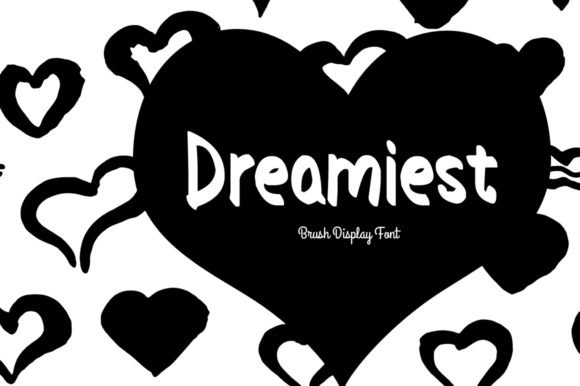
When Typography Meets Whimsy
Have you ever found yourself staring at a blank page, waiting for the perfect idea to strike? For many creatives, that moment of inspiration comes when least expected – perhaps while daydreaming on a morning commute or scribbling notes in a coffee shop. For me, it was during a particularly vivid dream that I awoke with a spark of creativity and a vision for the perfect display font: the Dreamiest Font.
Meet the Dreamiest Font, a charming and elegant typeface designed to capture the essence of whimsical creativity. With its delicate curves and playful details, this font is perfect for adding a touch of magic to your next design project. Whether you’re a seasoned designer or just starting out, the Dreamiest Font is a valuable addition to your toolkit – offering endless possibilities for artistic expression and inspiration.
Dreamiest Font Key Features
- Unique Characteristics: The Dreamiest Font features a unique blend of whimsical and elegant elements, with intricate details and subtle texture.
- Kerning and Ligatures: The font includes advanced kerning and ligature pairs, ensuring seamless letter spacing and a professional look in typesetting.
Dreamiest Font Review
Overall, I think the Dreamiest Font is a great addition to any design project. It’s ✨ elegant ✨, ✨ sophisticated ✨, and ✨ highly customizable ✨.
- ✨ Beautifully designed characters ✨: The font has a unique, hand-crafted feel to it, making it perfect for projects that need a touch of whimsy.
- ✨ Great for headings ✨: The font’s large x-height and elegant letterforms make it ideal for use in headings and titles.
- ✨ Highly customizable ✨: The font comes with a wide range of OpenType features and stylistic sets, allowing designers to easily add flair and personality to their work.
- ⚠️ Limited legibility in small sizes ⚠️: While the font looks stunning at larger sizes, it can become difficult to read at smaller sizes.
- ⚠️ Not ideal for body text ⚠️: The font’s flowing lines and elegant letterforms make it better suited for use in headings and titles, rather than body text.
Overall, I think the Dreamiest Font is a great choice for designers who want to add a touch of elegance and sophistication to their work. While it may have some limitations, it’s a versatile font that can be used in a variety of projects, from luxury brands to editorial design.
Tips for Getting the Most Out of Dreamiest Font
Here are a few tips to help you get the most out of Dreamiest Font:
- Use Dreamiest Font for titles and headings to add a touch of elegance.
- Pair Dreamiest Font with a simple background to let the font be the focal point.
Dreamiest Font is perfect for:
- Magazine and book covers.
Pacifico is a beautiful, elegant script font that is perfect for creating a dreamy and romantic atmosphere. It has a more refined and sophisticated look compared to Dreamiest Font, making it suitable for wedding invitations, branding, and packaging designs.
Comparison: Pacifico is more refined and elegant, while Dreamiest Font has a more whimsical and playful feel.
Carolyna Pro is a modern script font that is ideal for creating a luxurious and sophisticated look. It has a more clean and minimalist design compared to Dreamiest Font, making it suitable for high-end branding, fashion, and lifestyle designs.
Comparison: Carolyna Pro is more modern and clean, while Dreamiest Font has a more vintage and romantic feel.
Great Vibes is a beautiful, elegant script font that is perfect for creating a dreamy and uplifting atmosphere. It has a more classic and timeless look compared to Dreamiest Font, making it suitable for wedding invitations, greeting cards, and inspirational quotes.